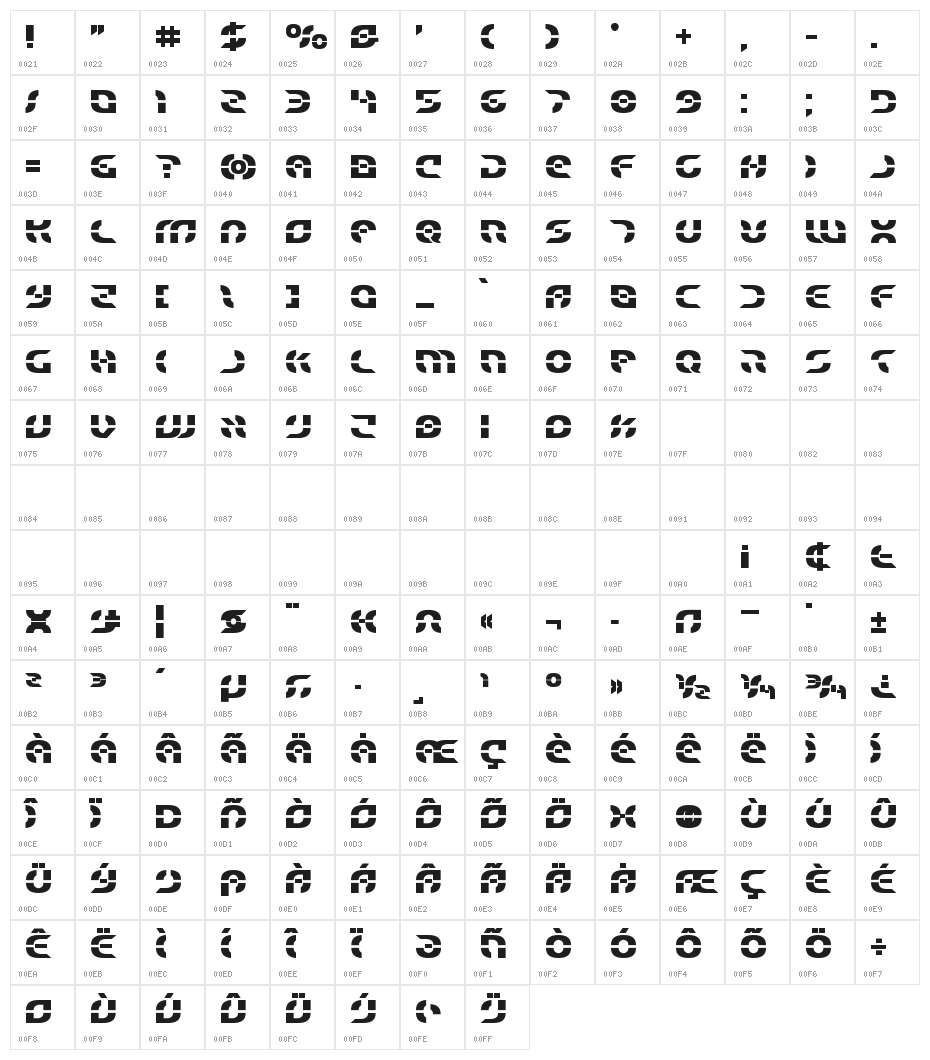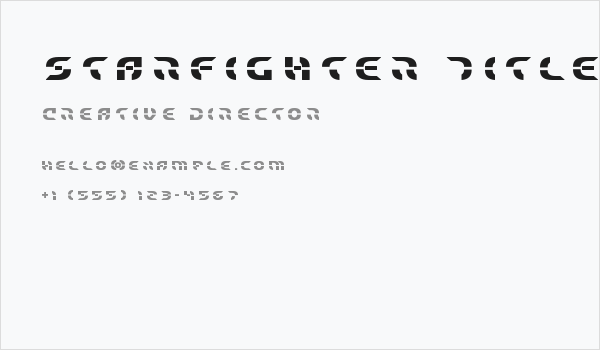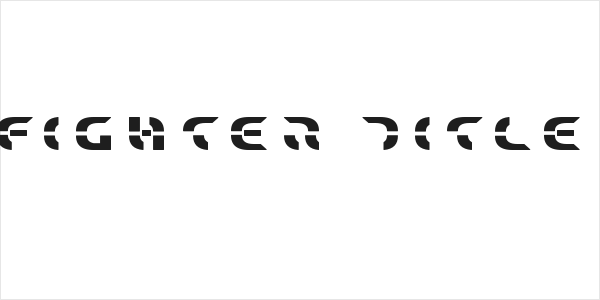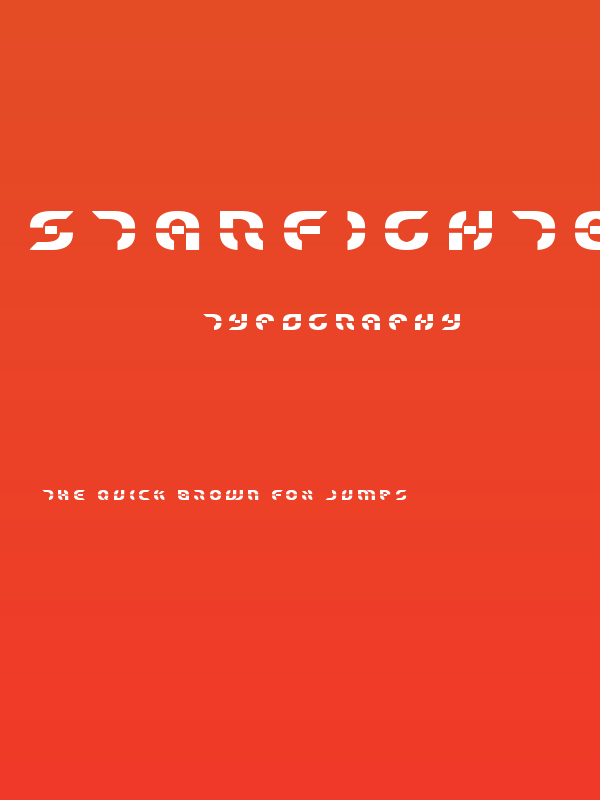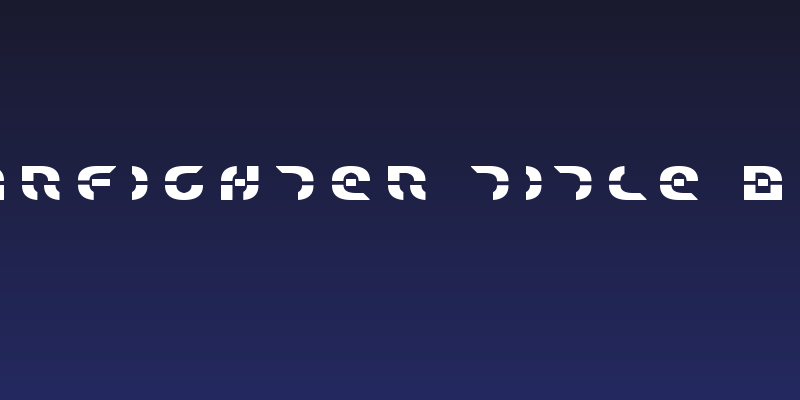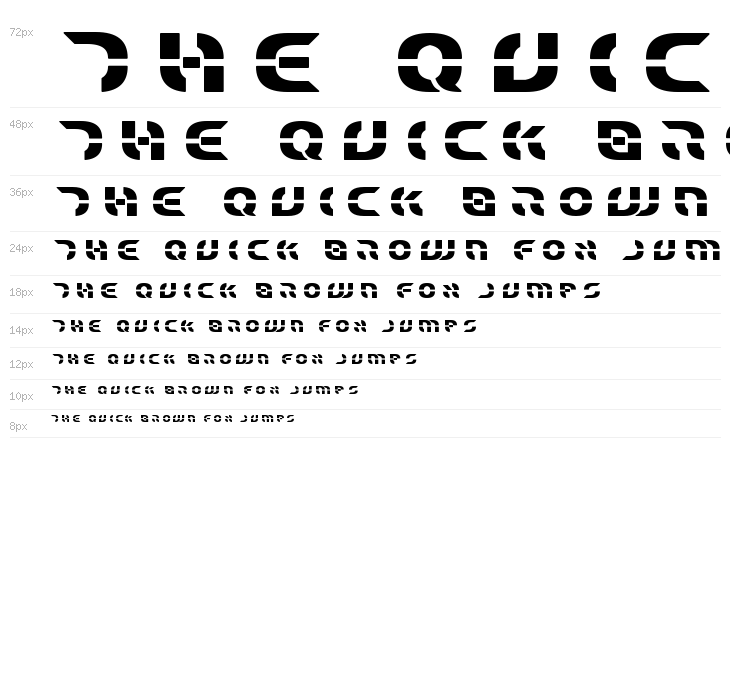
Starfighter Title Bold Font
Starfighter Title Bold Description
This font features a futuristic and bold design, characterized by its geometric shapes and sharp angles. The letters are constructed with a combination of solid and cut-out sections, creating a dynamic and modern appearance. The uppercase and lowercase letters maintain a consistent style, with a focus on symmetry and balance. The numerals and special characters follow the same design principles, ensuring a cohesive look across all characters. This font is ideal for projects that require a strong, impactful visual presence.
| Proposed Projects | Ideal for sci-fi themed designs, video game titles, posters, and branding that requires a modern and bold aesthetic. |